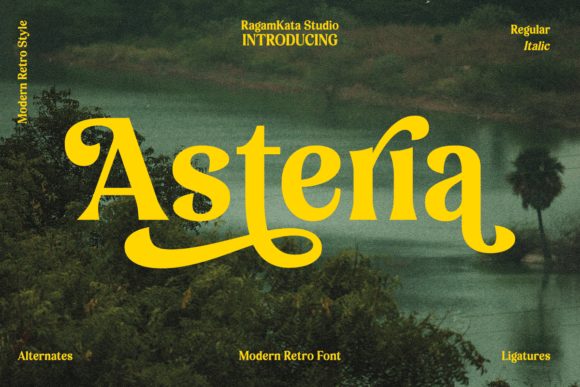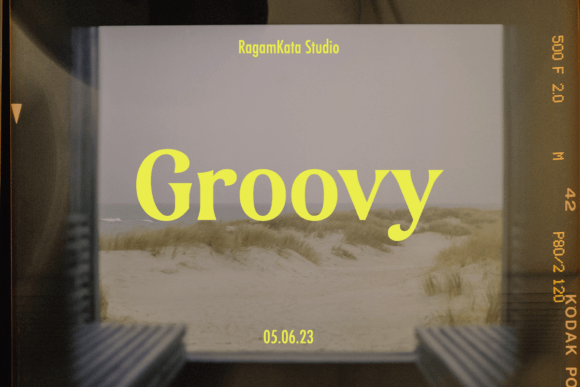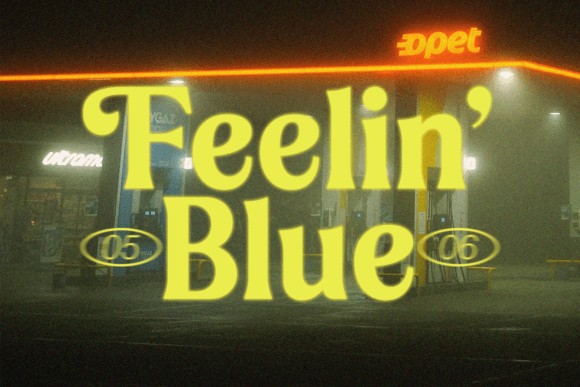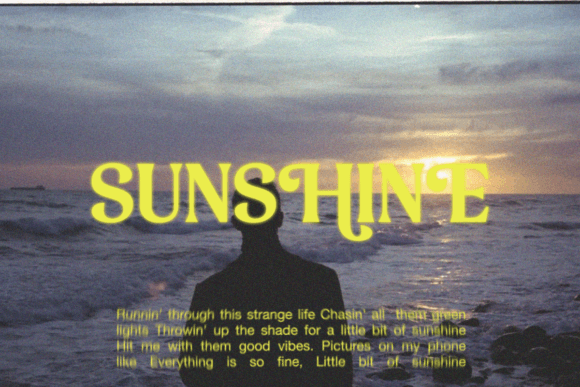
Asteria Font: A Groovy Retro Display Font for Nostalgic Designs
About the Asteria Font
Explore the possibilities with Asteria Font, a font that offers both beauty and functionality. Asteria is Retro Display Font. This typeface is perfect for various purposes such as Magazine Titles, Posters, Logos, T-Shirts, Sub Titles, Business cards, Magazines, Book Covers, Wedding Invitations,Templates Instagram Story Post, Greeting Cards, Quotes, etc.
Asteria’s bold, retro styling makes it ideal for headlines, posters, and branding projects requiring a strong visual impact. It excels in short, impactful statements and works particularly well for vintage-inspired designs, music-related projects, or products targeting a younger demographic. Avoid using Asteria for body text or lengthy passages; its condensed forms are unsuitable for extended readability.
Pairing Asteria successfully depends on the desired effect. For a balanced, retro feel, consider pairing it with a clean sans-serif like Montserrat or a slightly warmer serif like Playfair Display. To emphasize its boldness, a minimalist sans-serif such as Lato can create a modern contrast. Using a script font alongside Asteria could become overwhelming; exercise caution in such pairings.
The font exudes a confident, energetic personality. Brands seeking a retro yet contemporary aesthetic will find Asteria a strong visual asset. Its character is best suited for projects that need to convey a sense of boldness and vintage charm.
Asteria Font Usage Examples